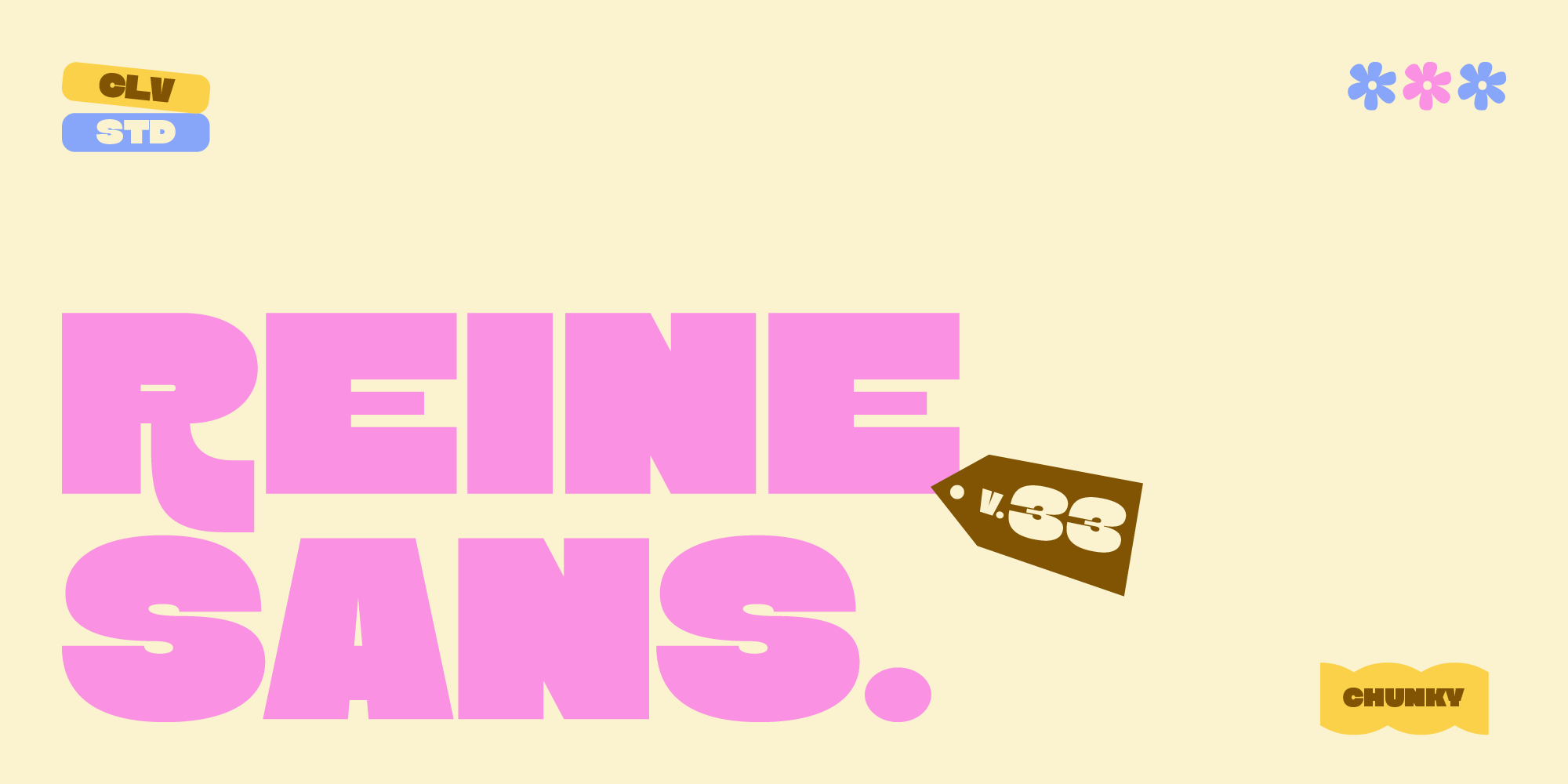
The Reine Sans Font excels in royal institution branding, luxury palace communications, regal event promotions, aristocratic heritage projects, crown estate materials, noble family communications, sovereign service providers, and majestic design applications that require royal authority with queenly elegance and aristocratic sophistication.
What makes the Reine Sans Font Free Download so exciting is its exceptional ability to convey royal dignity and queenly elegance through clean sans-serif typography that embodies both modern sophistication and timeless regal authority. This typeface features refined letterforms with royal characteristics that suggest crown jewels, palace grandeur, and the understated elegance that defines true aristocratic taste. Its majestic aesthetic speaks to luxury brands and institutions who appreciate both royal heritage and contemporary refinement, making it perfect for premium service providers, luxury hospitality, and heritage organizations requiring typography that projects both sovereign authority and modern sophistication.
The Reine Sans Font family encompasses comprehensive weight variations from Light to Bold, each maintaining the font's signature royal character and aristocratic elegance. The collection includes Regular, Medium, and Bold styles with enhanced regal characteristics that reinforce the font's queenly appeal and sovereign authority. This majestic font system ensures luxury brands and royal heritage organizations have access to typography that conveys genuine nobility while creating immediate connection to concepts of royal service, aristocratic quality, and sovereign excellence.
Perfect for luxury hotels, royal heritage sites, aristocratic brands, and creative professionals working on projects that celebrate royal tradition and aristocratic elegance with contemporary sophistication. The font's regal appeal makes it invaluable for luxury marketers, heritage preservationists, and sovereign service providers developing communications that must honor royal traditions while engaging modern audiences. Download Reine Sans Font Free Download today and reign over typographic excellence with this exceptional typeface that rules with royal authority while delivering queenly sophistication and aristocratic authenticity for sovereign communications.